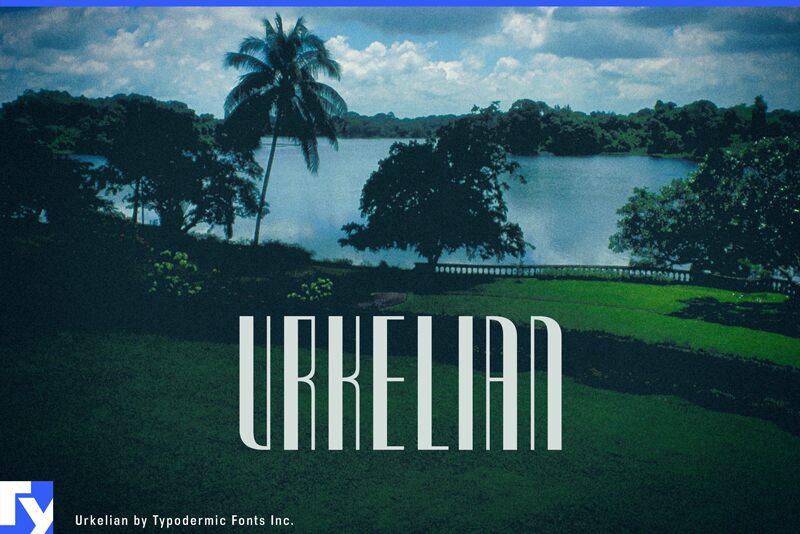
Urkelian from Typodermic Fonts is a free retro display font with extremely tall, compressed letters and dramatic changes in stroke width. Broad black uprights sit beside hairline-thin curves and crossbars, producing a striped silhouette across a line of type. Rounded arches soften the otherwise severe vertical structure.
Fashion labels, nightclub promotions, and music packaging could use its elongated proportions to suggest a sleek late-20th-century look. In editorial covers or event posters, the lettering can function almost like a repeating architectural pattern, with the same narrow verticals linking stylish branding, performance graphics, and image-led layouts rather than ordinary supporting type.
Urkelian is a font designed during the final episode of Family Matters.